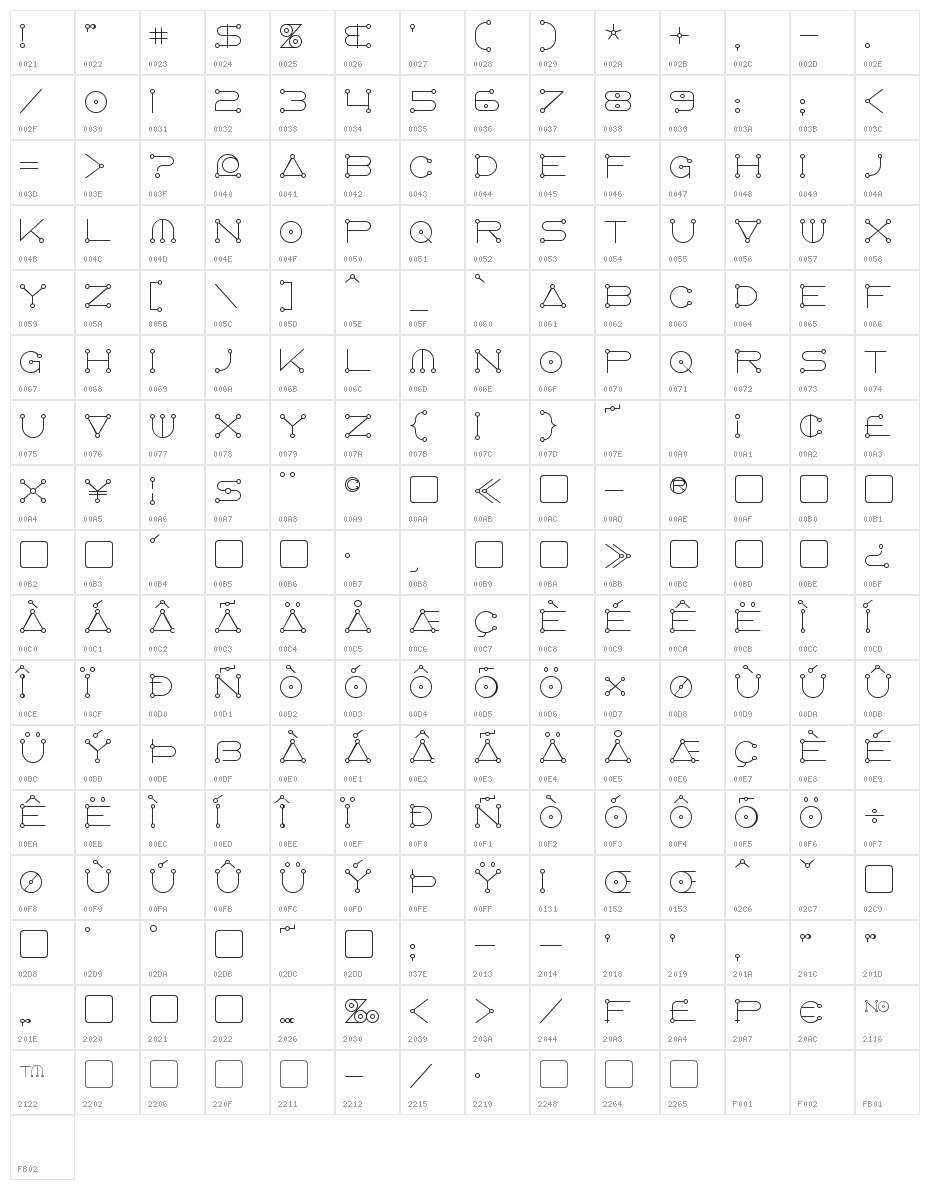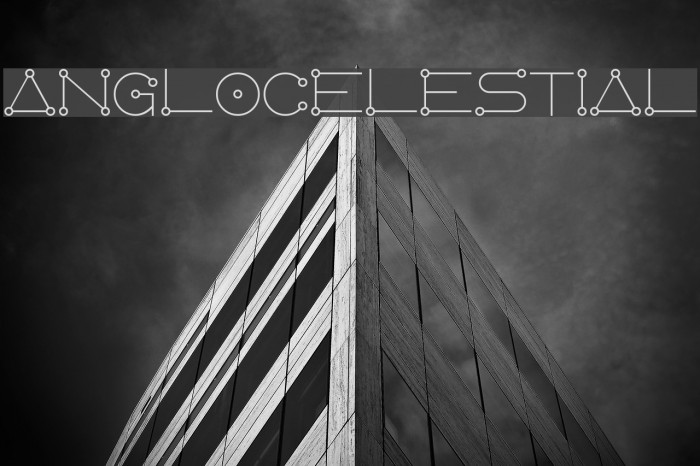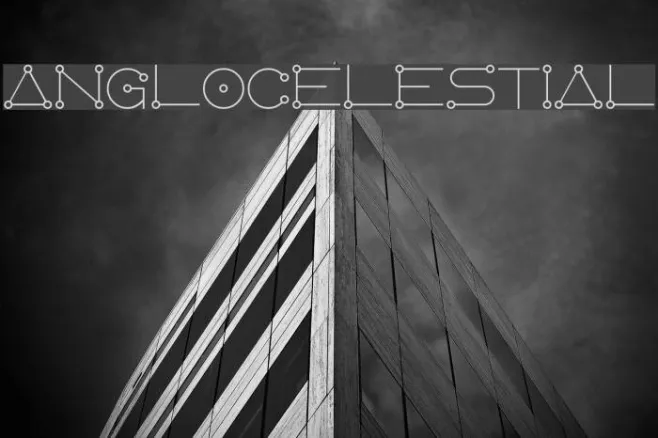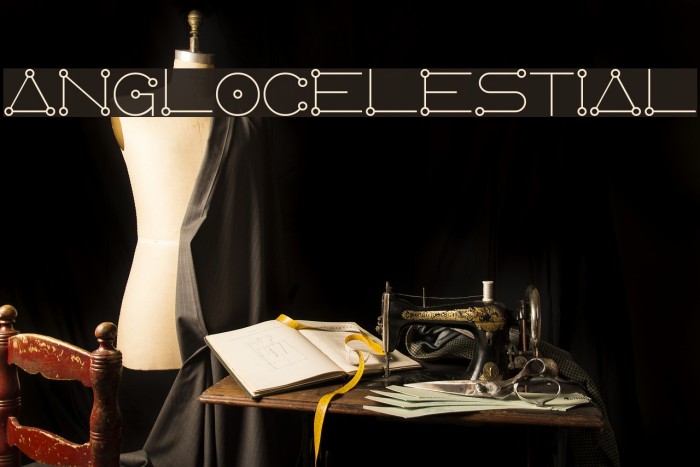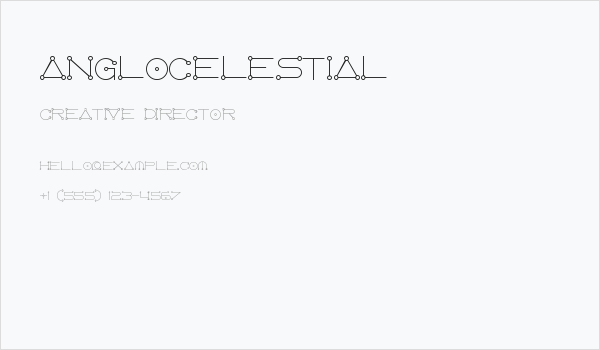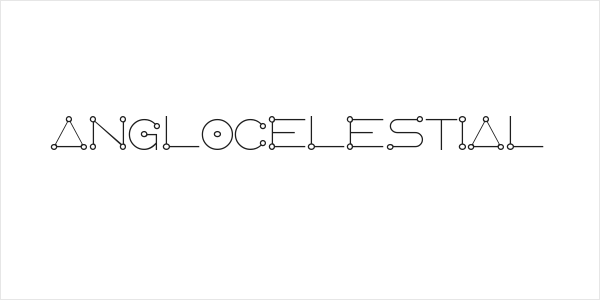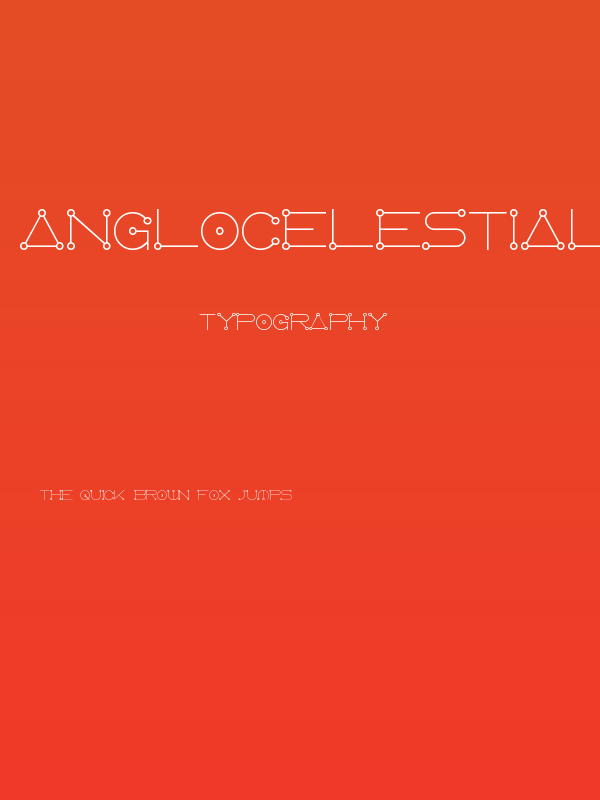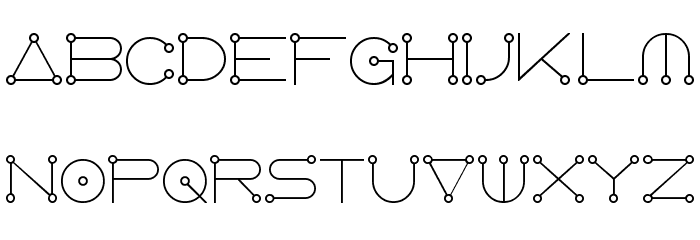
AngloCelestial Font
AngloCelestial Description
This font features a futuristic and geometric design, characterized by its unique use of circular nodes and connecting lines. Each character is constructed with a series of dots and straight lines, giving it a circuit-like appearance. The uppercase and lowercase letters maintain a consistent style, with the lowercase being slightly smaller in scale. The numbers and special characters follow the same design principles, ensuring uniformity across the font. The overall look is modern and tech-inspired, making it suitable for projects that require a digital or sci-fi aesthetic.
| Use Case | Logos, Headlines, Digital Interfaces |
| Proposed Projects | Ideal for tech-themed designs, sci-fi movie posters, digital interfaces, and branding for technology companies. |